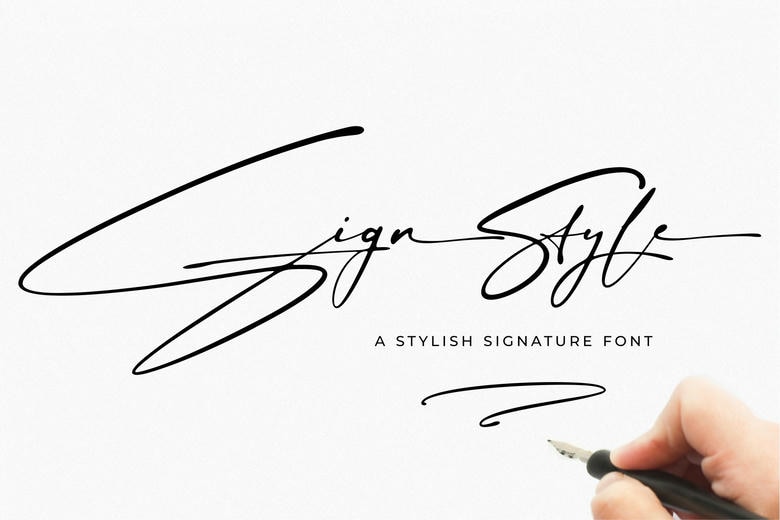
Sign Style Font
The Sign Style font is a hand made font. This is meant to be used by those of you who happen to require a little tinge of clean signature font. The font is personal and hand-written and modern, and it is ideal in signature logos, branding, packaging and advertising.
Sign Style font has been created this way that capital initials can nicely used at the beginning of a sentence and provide such a natural signature ambiance. It is a distinctive font which can help your signature brand to stand out of the crowd and still be personal and friendly.
Sign Style Handwritten Font